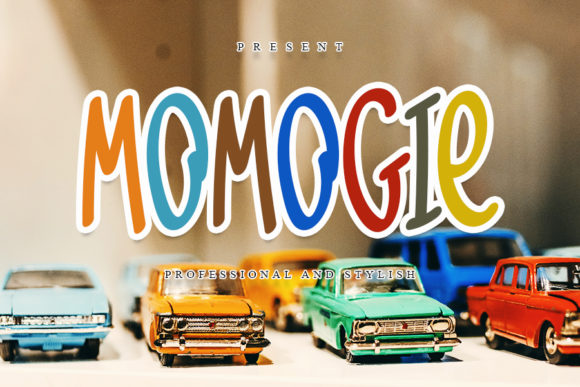
Introducing Momogie Font, the whimsical and captivating display font that sparks imagination and captures hearts. Its playful and authentic charm brings a touch of magic to your designs, making them irresistible and memorable. Step into a world of creativity where Momogie's vibrant hues and enchanting shapes take center stage.
Express your unique style with Momogie, the perfect font for children's activities and school projects. Embark on a colorful journey, where learning becomes an adventure and every assignment transforms into a masterpiece. Momogie's playful spirit inspires imagination, encouraging young minds to explore new horizons and express themselves freely.
Create eye-catching invitations, posters, and flyers that pop off the page. Momogie's vibrant colors and whimsical shapes grab attention, ensuring your messages stand out from the crowd. Your designs will radiate with joy and energy, leaving a lasting impression on your audience.
Unlock the power of creativity with Momogie Font. Let its enchanting characters dance across your designs, captivating audiences with their playful charm. From classroom projects to imaginative artwork, Momogie transforms ordinary words into extraordinary expressions.
Embrace the magic of Momogie Font today and embark on a creative adventure like no other. Dive into a world of color, creativity, and imagination, where your designs come alive with a unique charm that captivates and inspires.